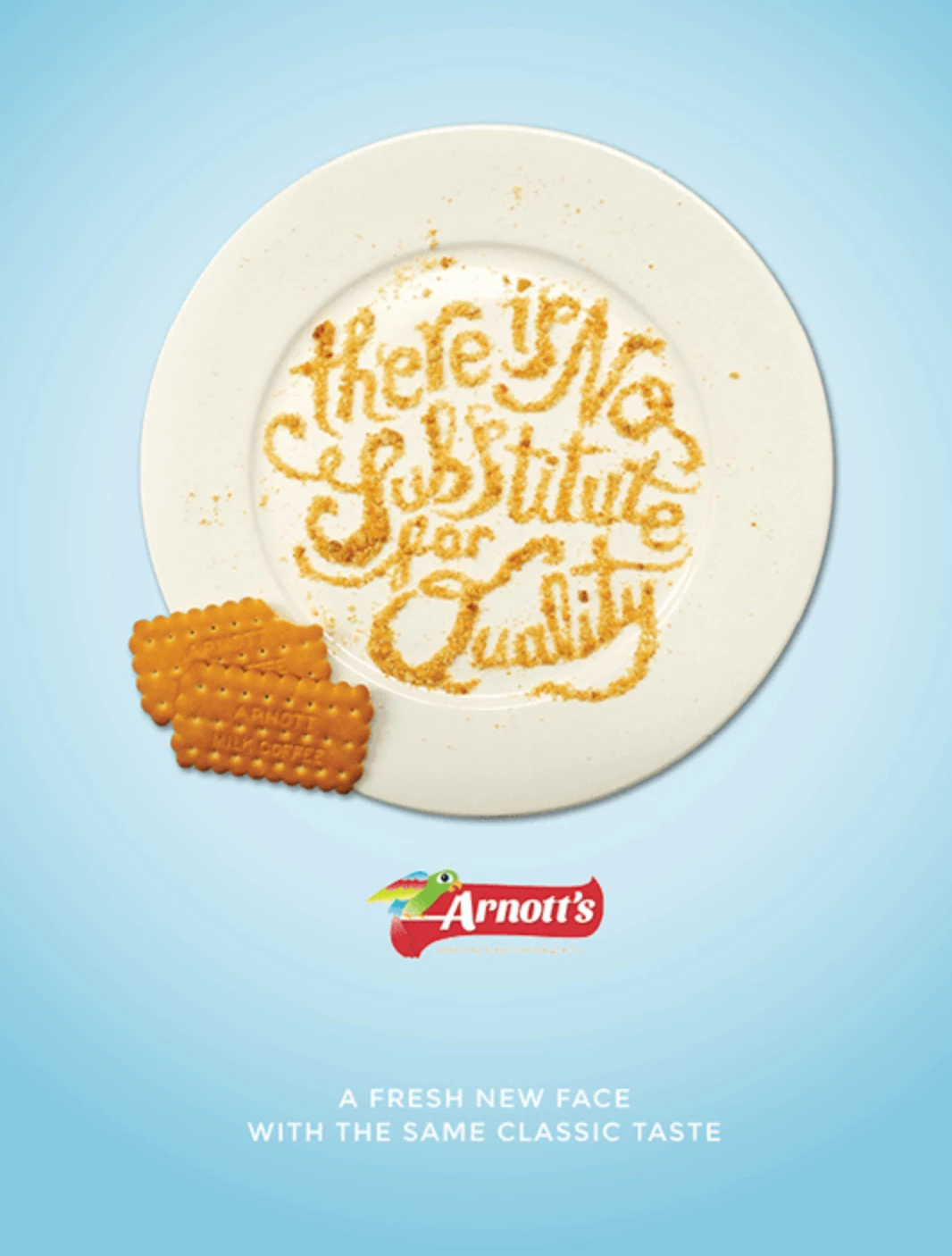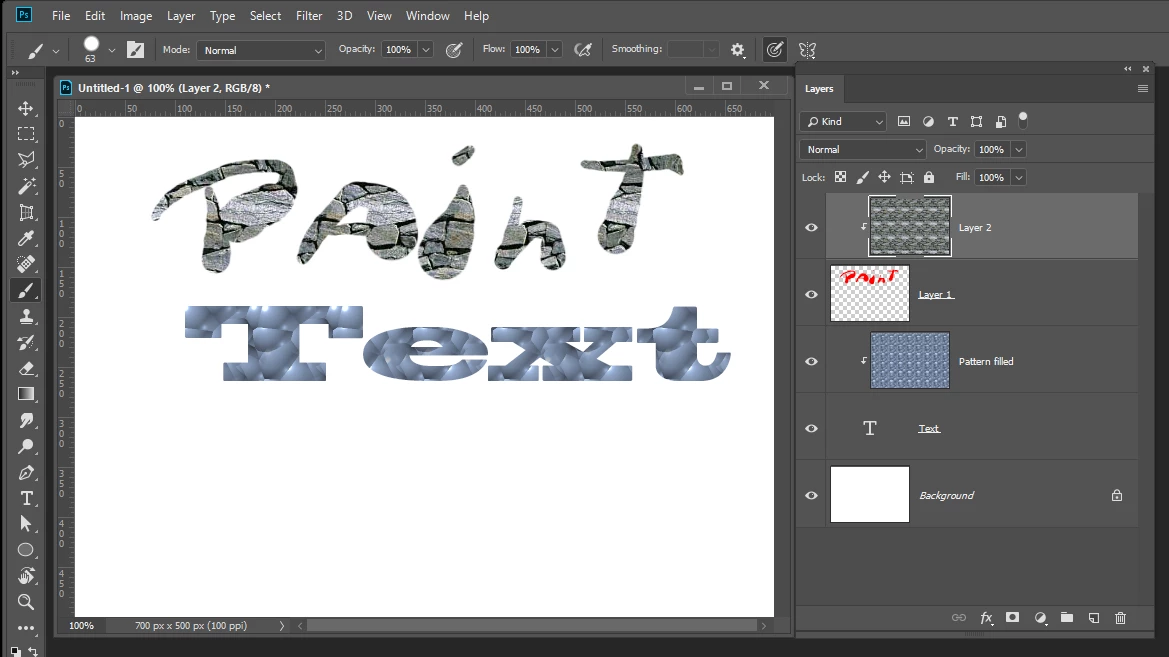
food crumbs typeface
hello! may i ask how can i do such typeface using food crumbs? can i do it through photoshop? thanks!
And frizzled edges for a Layer/Layer Mask could be achieved with randomised Brushes or various Filter/Blend Mode combinations.
But if that can help achieve the intended look depends …
Create a food crumb pattern. Fill an empty layer  with your pattern and clip it to the text layer.  You will also have to add a layer to contain the crumbs you want to add to the plate layer. Or paint the text and crumbs on and empty layer and clip your patter fill to that layer.